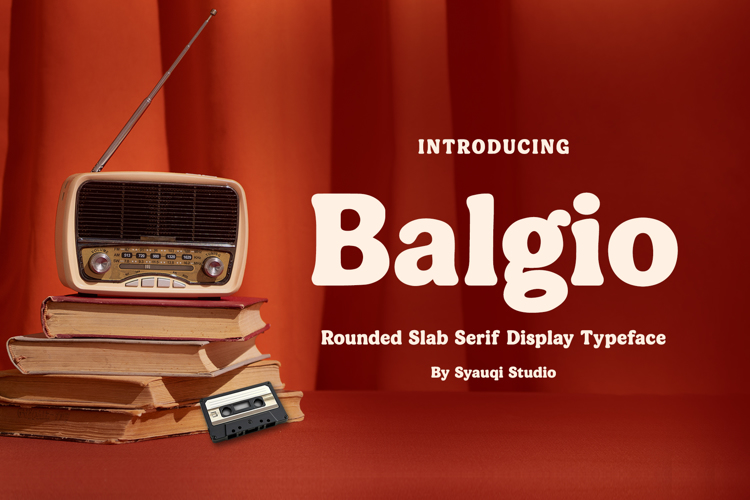
Balgio Font
Balgio – Rounded Slab Serif Display Typeface
Balgio is a bold rounded slab serif font that merges modern softness with timeless strength. Designed with smooth terminals, sturdy serifs, and low contrast strokes, Balgio delivers a look that’s both confident and approachable, perfect for brands that want to stand out while staying warm and relatable.